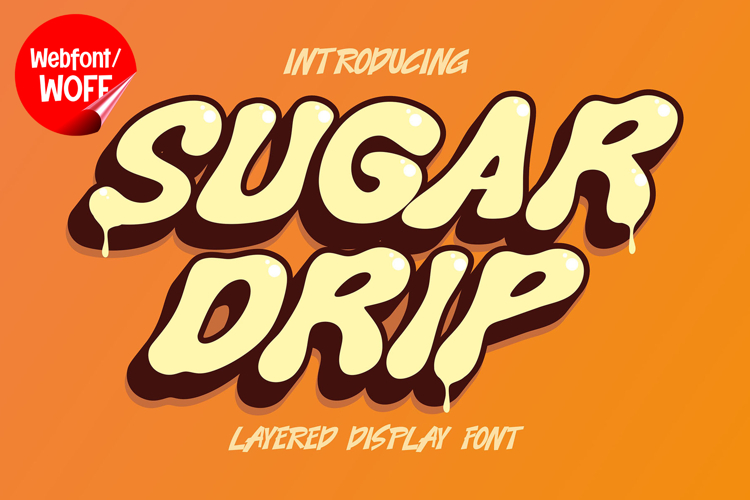
Sugar Drip | Dripping Groovy Webfont for Retro Fun Design
Sugar Drip is a dripping groovy webfont designed to bring a playful retro vibe combined with liquid-style effects into modern website design. Inspired by 70s groovy typography and melting drip aesthetics, this font features soft curves, bold shapes, and flowing drip details that create a fun and expressive visual identity. It is an excellent choice for projects that aim to deliver a cheerful, nostalgic, and eye-catching typographic style.
Sugar Drip includes a complete set of uppercase characters designed with groovy-inspired forms and dripping effects. The letterforms are rounded and bold, with fluid drip accents that give the font a melting and organic appearance. These characteristics make it ideal for headlines, banners, hero sections, and featured content where a fun and standout visual is needed.
In addition to letters, the font includes numbers and punctuation, allowing flexible usage across various parts of a website. It works well for promotional content, product highlights, event announcements, creative branding, and call-to-action sections. Each character maintains a consistent groovy dripping style, ensuring a cohesive and unified visual identity throughout the layout.
With multilingual support, Sugar Drip includes a wide range of accented characters, making it suitable for international websites and global audiences. This ensures that content remains clear and visually consistent across different languages while preserving its retro and playful aesthetic.
The dripping groovy style of Sugar Drip makes it especially suitable for lifestyle brands, kids’ content, creative portfolios, retro-themed websites, and entertainment platforms. Its vibrant and fluid design adds personality and charm, helping websites stand out in visually competitive environments. The drip effect enhances the sense of movement and creativity.
Despite its decorative and playful appearance, Sugar Drip is designed with readability in mind. The spacing and proportions are carefully balanced to ensure clarity, particularly in display sizes. This allows designers to use the font effectively for bold headings and short content without losing usability.
Sugar Drip is a webfont that combines groovy retro aesthetics with dripping effects and modern web performance. Its rounded shapes, fluid details, and playful character create a distinctive typographic presence that enhances website design. For projects that require a fun, nostalgic, and visually engaging font, Sugar Drip offers a unique and dynamic solution.